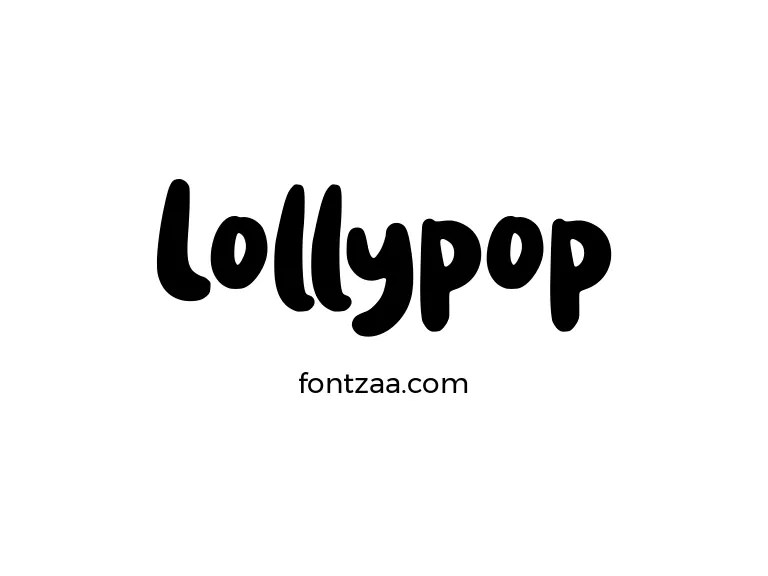
Lollypop Font combines distinctive character shapes with a elegant appearance suited to display-focused design. For projects that need typography with a stronger identity, Lollypop Font offers a elegant direction suited to creative display work. Using generous space around the lettering can help the details of the typeface remain visible instead of competing with other elements. Different color combinations can make the same font feel subtle, energetic, premium or highly decorative. Testing several arrangements before choosing the final version can reveal which characteristics of the typeface work best. The font can be considered for projects such as invitations, wedding stationery, signatures, quotes and elegant branding. Keeping secondary typography simple often allows the distinctive qualities of the main font to remain more visible. For layouts containing longer information, pairing it with a simpler supporting typeface can improve readability and hierarchy. The available source information lists https://alpapranastudio.com as the designer or publisher. The listed license is Free for personal use, although users should still review the original font package before commercial use. Its final appearance will depend heavily on the surrounding colors, imagery, spacing and supporting typography.
Lollypop Font stands out through its individual shapes and can become an important visual element in headlines, branding and promotional layouts. Using generous space around the lettering can help the details of the typeface remain visible instead of competing with other elements. Testing several arrangements before choosing the final version can reveal which characteristics of the typeface work best. The typeface can change considerably depending on tracking, scale, alignment, background and surrounding imagery. Possible applications include invitations, wedding stationery, signatures, quotes and elegant branding. Print and digital layouts may require different sizing and spacing, so testing the actual output dimensions is recommended. Designers should evaluate the typeface inside the real project because a standalone preview cannot show every possible visual combination. The designer or publisher information available for this typeface is https://alpapranastudio.com. Current license information is shown as Free for personal use; checking the original documentation is recommended before client or commercial work. The most effective treatment will vary by project, so designers should compare several versions before finalizing the artwork.
With its distinctive letterforms, Lollypop Font can introduce a elegant character into digital and print projects. Testing several arrangements before choosing the final version can reveal which characteristics of the typeface work best. Its letter shapes become especially noticeable at larger sizes, where spacing and proportions can be explored more clearly. The typeface can change considerably depending on tracking, scale, alignment, background and surrounding imagery. The font can be considered for projects such as invitations, wedding stationery, signatures, quotes and elegant branding. For layouts containing longer information, pairing it with a simpler supporting typeface can improve readability and hierarchy. Print and digital layouts may require different sizing and spacing, so testing the actual output dimensions is recommended. Source metadata currently associates the font with https://alpapranastudio.com. License details are currently listed as Free for personal use. Users should verify the supplied documentation before using the font in products or paid projects. Testing the font with the actual project text can provide a much better impression than viewing isolated sample characters.
Lollypop Font Family
The Lollypop Font Family gives designers a flexible display option that can be adapted through changes in size, spacing, alignment and color. Lollypop Font brings a elegant personality to typography and gives designers a flexible starting point for font-family exploration. Different color combinations can make the same font feel subtle, energetic, premium or highly decorative. The typeface can change considerably depending on tracking, scale, alignment, background and surrounding imagery. Its letter shapes become especially noticeable at larger sizes, where spacing and proportions can be explored more clearly. Its display-focused appearance makes it worth testing in invitations, wedding stationery, signatures, quotes and elegant branding. Keeping secondary typography simple often allows the distinctive qualities of the main font to remain more visible. Designers should evaluate the typeface inside the real project because a standalone preview cannot show every possible visual combination. Source metadata currently associates the font with https://alpapranastudio.com. The available licensing label is Free for personal use, but redistribution and commercial permissions should always be confirmed from the original source. Testing the font with the actual project text can provide a much better impression than viewing isolated sample characters.
- Lollypop Font Regular
Design Ideas for Lollypop Font
For projects that need typography with a stronger identity, Lollypop Font offers a elegant direction suited to different creative applications for the font. The typeface can change considerably depending on tracking, scale, alignment, background and surrounding imagery. Its letter shapes become especially noticeable at larger sizes, where spacing and proportions can be explored more clearly. The font can work as the primary visual element in a minimal layout or as part of a more detailed composition. Its display-focused appearance makes it worth testing in invitations, wedding stationery, signatures, quotes and elegant branding. For layouts containing longer information, pairing it with a simpler supporting typeface can improve readability and hierarchy. Print and digital layouts may require different sizing and spacing, so testing the actual output dimensions is recommended. The available source information lists https://alpapranastudio.com as the designer or publisher. Current license information is shown as Free for personal use; checking the original documentation is recommended before client or commercial work. Testing the font with the actual project text can provide a much better impression than viewing isolated sample characters.
Lollypop Font Features
The visual character of Lollypop Font makes it an interesting choice for designers working on the visual characteristics and design personality of the typeface. Testing several arrangements before choosing the final version can reveal which characteristics of the typeface work best. Using generous space around the lettering can help the details of the typeface remain visible instead of competing with other elements. The typeface can change considerably depending on tracking, scale, alignment, background and surrounding imagery. Its display-focused appearance makes it worth testing in invitations, wedding stationery, signatures, quotes and elegant branding. Keeping secondary typography simple often allows the distinctive qualities of the main font to remain more visible. A clean serif or sans serif companion can handle smaller text while this font remains focused on headlines and key messages. The designer or publisher information available for this typeface is https://alpapranastudio.com. Current license information is shown as Free for personal use; checking the original documentation is recommended before client or commercial work. A few quick layout variations can help determine where the font creates the strongest visual result.
Getting Better Results With Lollypop Font
For projects that need typography with a stronger identity, Lollypop Font offers a elegant direction suited to spacing, contrast, scale and layout decisions. Different color combinations can make the same font feel subtle, energetic, premium or highly decorative. Testing several arrangements before choosing the final version can reveal which characteristics of the typeface work best. Its letter shapes become especially noticeable at larger sizes, where spacing and proportions can be explored more clearly. The font can be considered for projects such as invitations, wedding stationery, signatures, quotes and elegant branding. Designers should evaluate the typeface inside the real project because a standalone preview cannot show every possible visual combination. Keeping secondary typography simple often allows the distinctive qualities of the main font to remain more visible. The available source information lists https://alpapranastudio.com as the designer or publisher. Current license information is shown as Free for personal use; checking the original documentation is recommended before client or commercial work. A few quick layout variations can help determine where the font creates the strongest visual result.
Branding Ideas With Lollypop Font
Lollypop Font brings a elegant personality to typography and gives designers a flexible starting point for logos, wordmarks and visual identity systems. Testing several arrangements before choosing the final version can reveal which characteristics of the typeface work best. Different color combinations can make the same font feel subtle, energetic, premium or highly decorative. Its letter shapes become especially noticeable at larger sizes, where spacing and proportions can be explored more clearly. Designers may explore it across invitations, wedding stationery, signatures, quotes and elegant branding, depending on the tone and requirements of the project. Designers should evaluate the typeface inside the real project because a standalone preview cannot show every possible visual combination. For layouts containing longer information, pairing it with a simpler supporting typeface can improve readability and hierarchy. According to the available font information, the typeface is associated with https://alpapranastudio.com. The listed license is Free for personal use, although users should still review the original font package before commercial use. The most effective treatment will vary by project, so designers should compare several versions before finalizing the artwork.
Lollypop Font in Digital and Poster Design
The visual character of Lollypop Font makes it an interesting choice for designers working on posters, campaigns, thumbnails and promotional content. Using generous space around the lettering can help the details of the typeface remain visible instead of competing with other elements. The font can work as the primary visual element in a minimal layout or as part of a more detailed composition. Different color combinations can make the same font feel subtle, energetic, premium or highly decorative. Designers may explore it across invitations, wedding stationery, signatures, quotes and elegant branding, depending on the tone and requirements of the project. Designers should evaluate the typeface inside the real project because a standalone preview cannot show every possible visual combination. Keeping secondary typography simple often allows the distinctive qualities of the main font to remain more visible. Source metadata currently associates the font with https://alpapranastudio.com. The available licensing label is Free for personal use, but redistribution and commercial permissions should always be confirmed from the original source. The most effective treatment will vary by project, so designers should compare several versions before finalizing the artwork.
Choosing Supporting Fonts for Lollypop Font
The visual character of Lollypop Font makes it an interesting choice for designers working on combining the display font with supporting typefaces. Its letter shapes become especially noticeable at larger sizes, where spacing and proportions can be explored more clearly. The typeface can change considerably depending on tracking, scale, alignment, background and surrounding imagery. The font can work as the primary visual element in a minimal layout or as part of a more detailed composition. The font can be considered for projects such as invitations, wedding stationery, signatures, quotes and elegant branding. Designers should evaluate the typeface inside the real project because a standalone preview cannot show every possible visual combination. Print and digital layouts may require different sizing and spacing, so testing the actual output dimensions is recommended. According to the available font information, the typeface is associated with https://alpapranastudio.com. Current license information is shown as Free for personal use; checking the original documentation is recommended before client or commercial work. Experimenting directly in the intended design is usually the best way to judge whether the typeface suits the project.